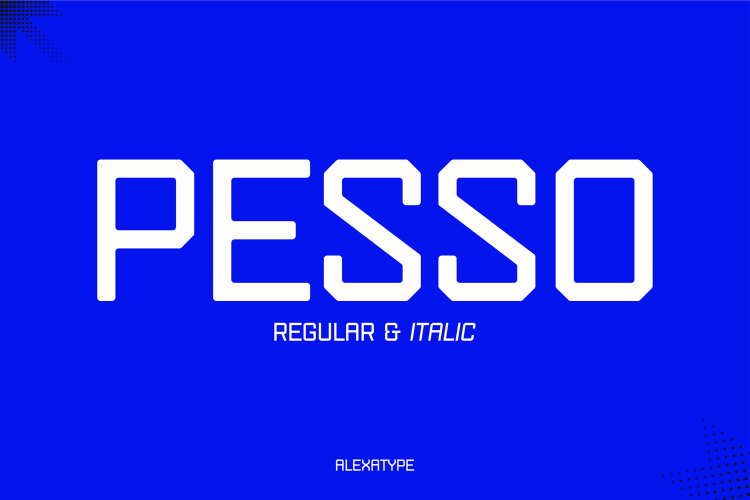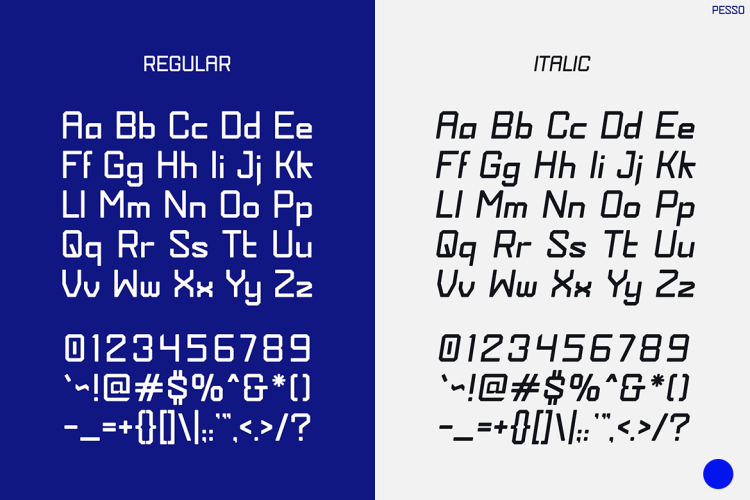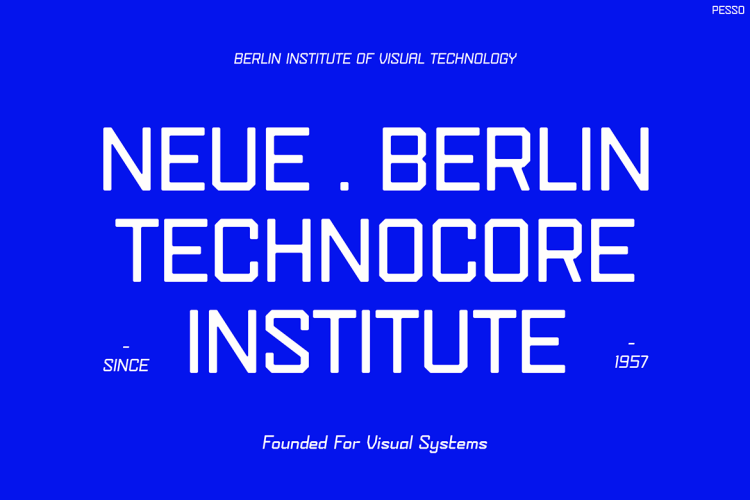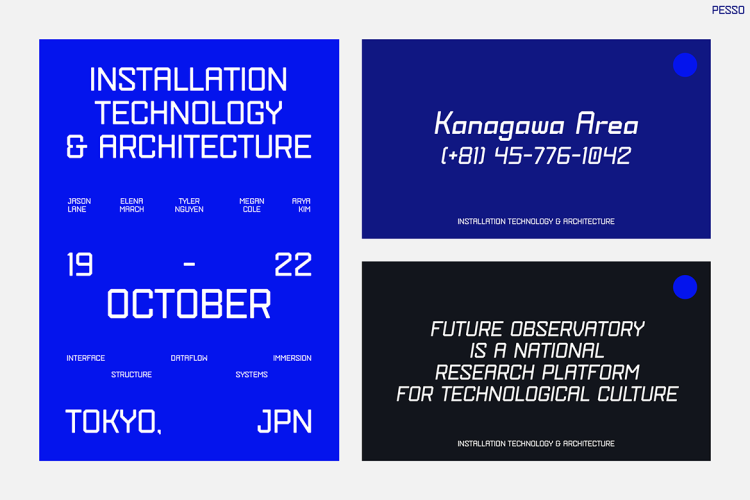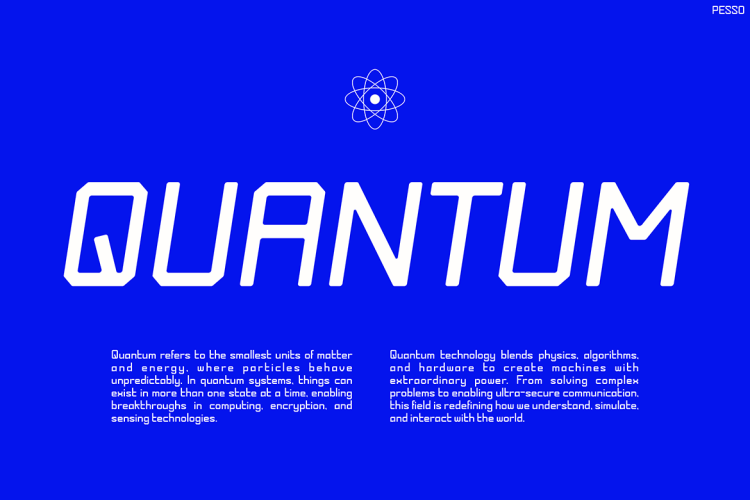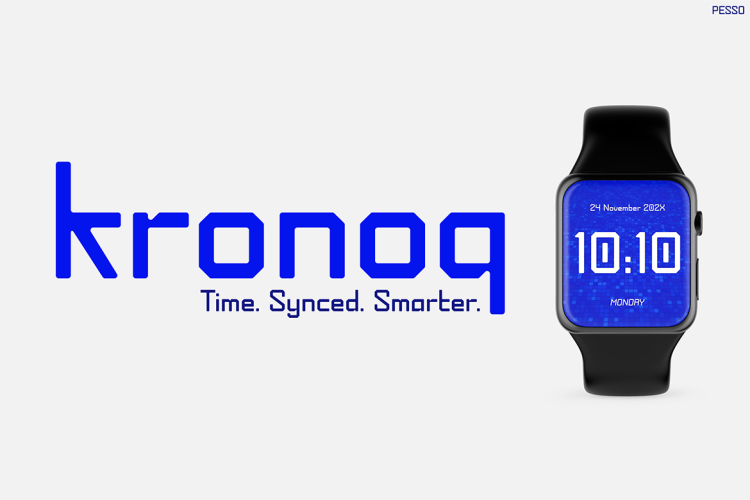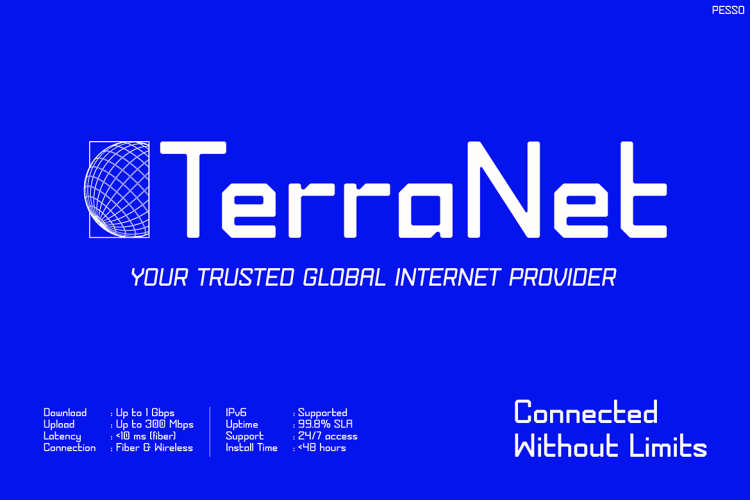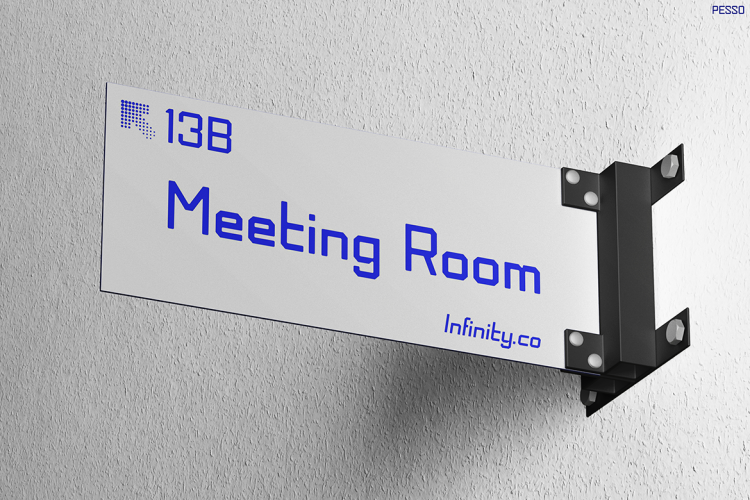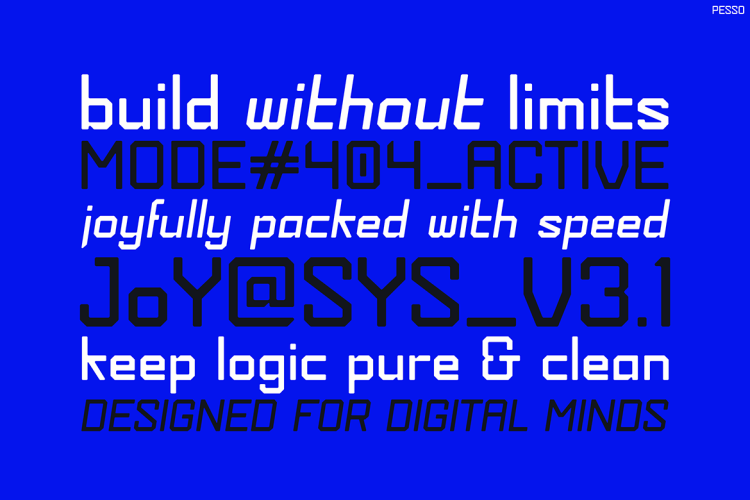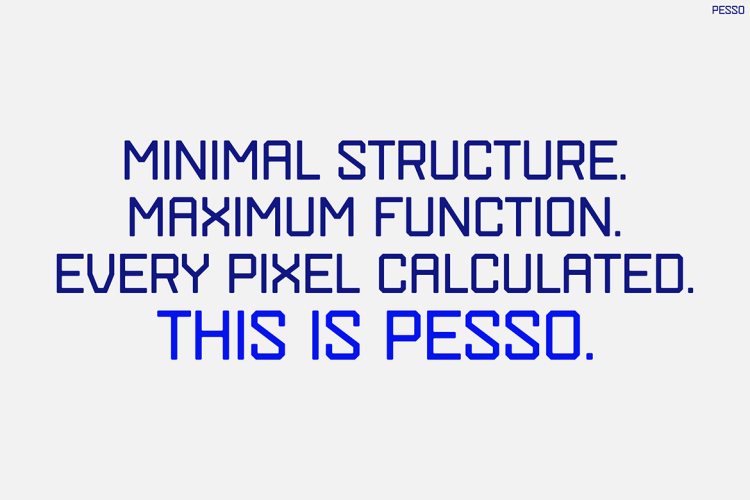
Futuristic Font PESSO: Where Minimal Meets Precision
Futuristic Font PESSO is more than just a modern typeface โ it’s a forward-thinking visual system crafted for a digital-first world. Not only is it clean and highly legible, but it also brings a refined tech aesthetic that makes any design feel advanced. With strong geometric structure, thoughtful spacing, and razor-sharp curves, PESSO delivers precision and style in equal measure.
What truly sets PESSO apart is its subtle fusion of minimalism and innovation. While its form remains structured and consistent, the italic version introduces motion and energy, ideal for futuristic storytelling. As a result, your designs gain visual dynamism without sacrificing readability.
Furthermore, every character is engineered to offer clarity in both print and screen formats. Whether itโs for branding, interface design, or editorial layouts, this font adapts effortlessly. In fact, PESSO is the kind of typeface that performs just as well in detailed data dashboards as it does in large-scale event branding.
Perfect For:
Tech Startups, UI Designers, Analysts, and Future-Centric Brands**
Futuristic Font PESSO is especially useful for professionals and companies working in fast-paced industries such as AI, machine learning, cybersecurity, and digital infrastructure. Because of its logical structure and clean finish, PESSO complements futuristic apps, smart technologies, and data-driven platforms.
Moreover, if you’re a UI/UX designer, this font brings an extra level of polish to dashboards, system displays, and control interfaces. Scientific institutions and digital agencies will also find its modern tone suitable for proposals, pitch decks, or signage. Even software developers can benefit by using PESSO for documentation, presentations, or code-based visual branding.
In short, anyone who wants to reflect clarity, intelligence, and innovation through typography will find great value in this font.
Final Thoughts
Ultimately, Futuristic Font PESSO offers a pixel-perfect type system that blends form and function seamlessly. If you’re designing for tomorrowโs market, donโt rely on yesterdayโs typefaces. Instead, choose a font that reflects speed, intelligence, and forward motion.
Whether you’re crafting high-tech branding, futuristic UI, or smart product visuals, PESSO empowers you to communicate boldly and clearly. So why settle for generic fonts when you can design with purpose and vision?
Let PESSO transform your message โ cleanly, intelligently, and unmistakably.